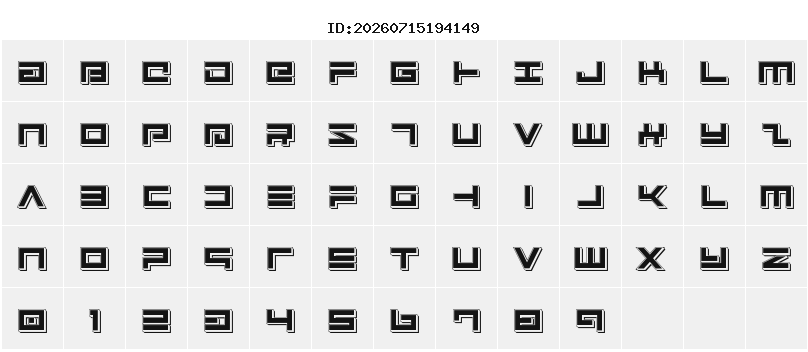
Avenger Punch Preview
• Font Name: Avenger Punch
• Full Font Name: Avenger Punch
About Avenger Punch.ttf
Avenger Punch.ttf is a modern, elegant sans-serif font designed for ultimate readability and visual harmony. Perfect for branding, headlines, web design, and print materials.